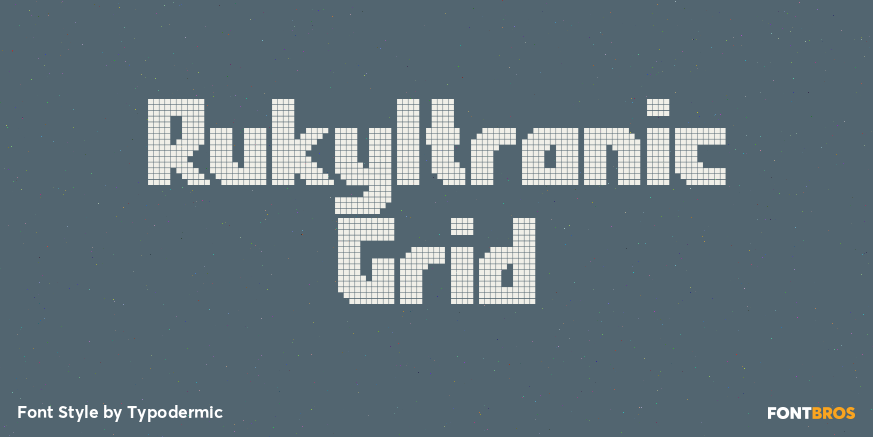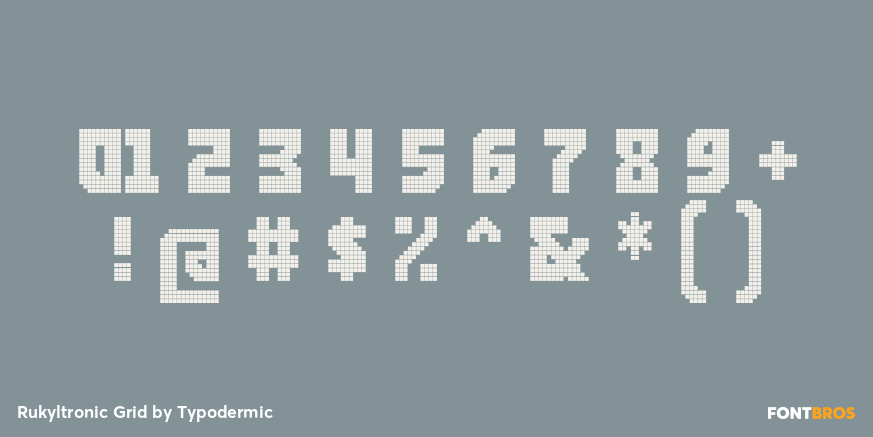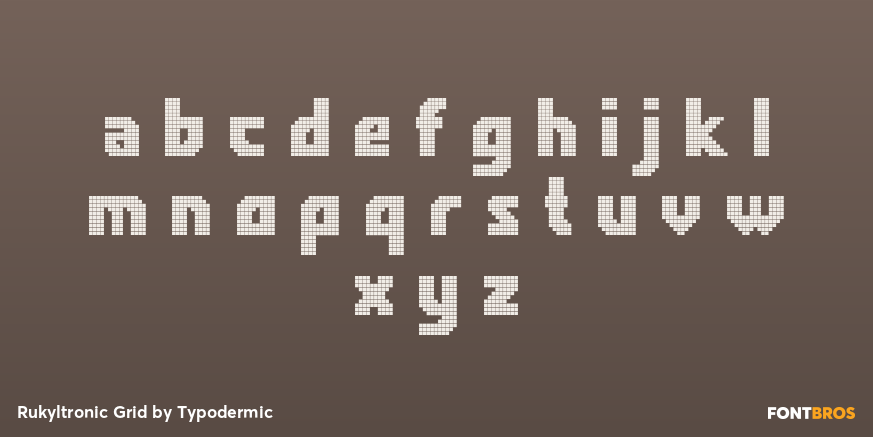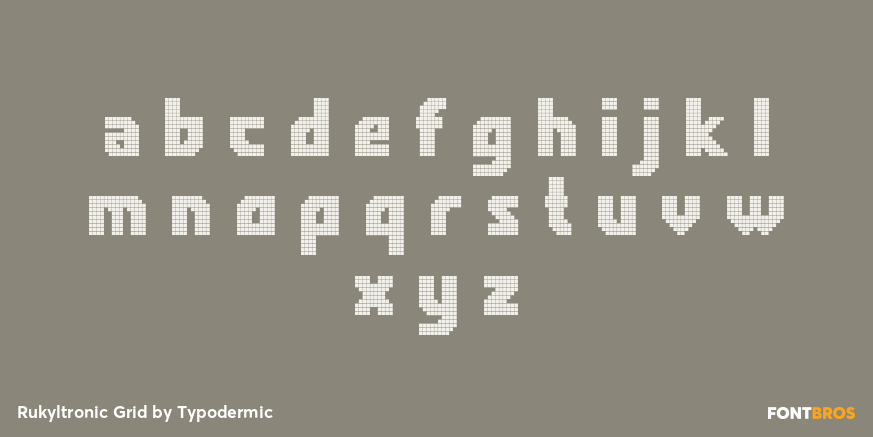
Rukyltronic Grid
Buy NowRukyltronic Grid fills the family’s pixel-native silhouettes with large square cells separated by hairline seams. The tiles pack closely enough to form forceful, nearly solid strokes, while the visible matrix makes every curve and diagonal feel assembled on a display panel. It is the densest and most emphatic of Rukyltronic’s square-module treatments.
Use Rukyltronic Grid for team wordmarks, tournament titles, scoreboard interfaces, esports graphics, equipment model names, and large numerical callouts. It holds together at more moderate display sizes than the finer Mesh and Network styles, though short headings still show its construction best. Pair it with Regular for compact information or introduce Lattice and Mesh when the same identity needs lighter alternate surfaces without changing its underlying letter shapes.